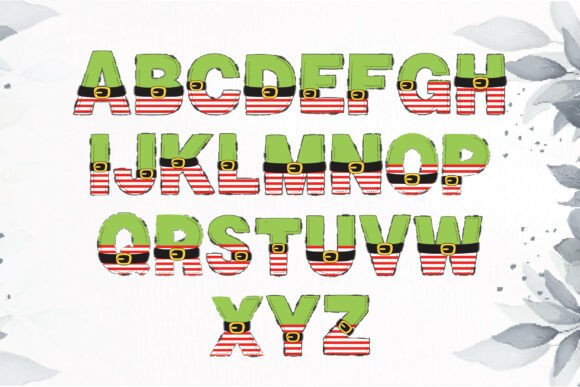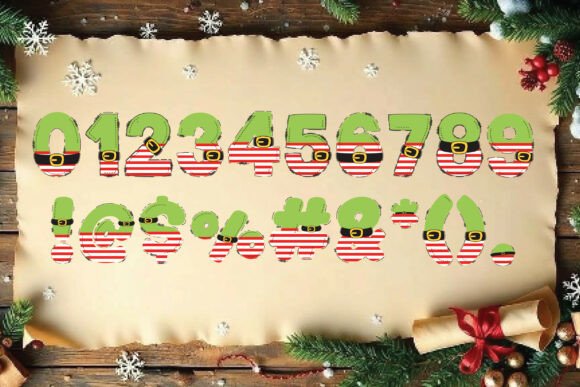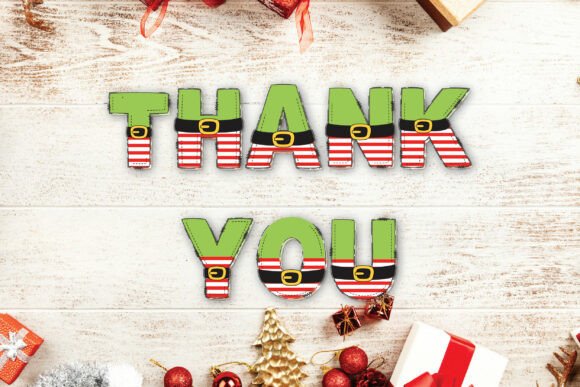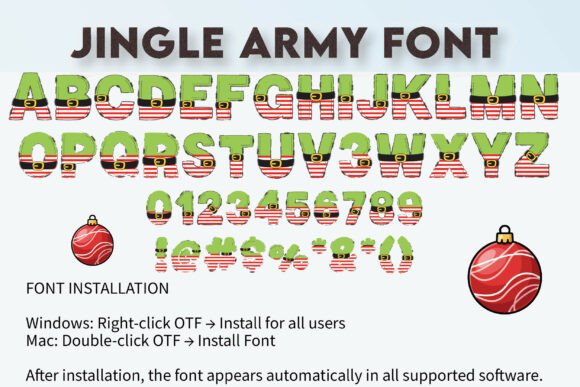
Introduction to Jingle Army Font
🎄 Jingles Army Alphabet Letters – Festive Military Style Font Add a fun, bold, and festive touch to your holiday projects with the Jingles Army Font, featuring strong, army-inspired alphabet letters.
Perfect for Christmas cards, invitations, gift tags, posters, classroom crafts, party décor, and digital designs This font brings a playful yet structured look, making your projects stand out with a unique holiday style.
Key Features of Jingle Army Font
Why Choose Jingle Army Font?
Jingle Army Font offers exceptional quality and versatility, making it a valuable addition to your design toolkit. Whether you’re creating for personal projects or commercial use, Jingle Army Font delivers professional results.